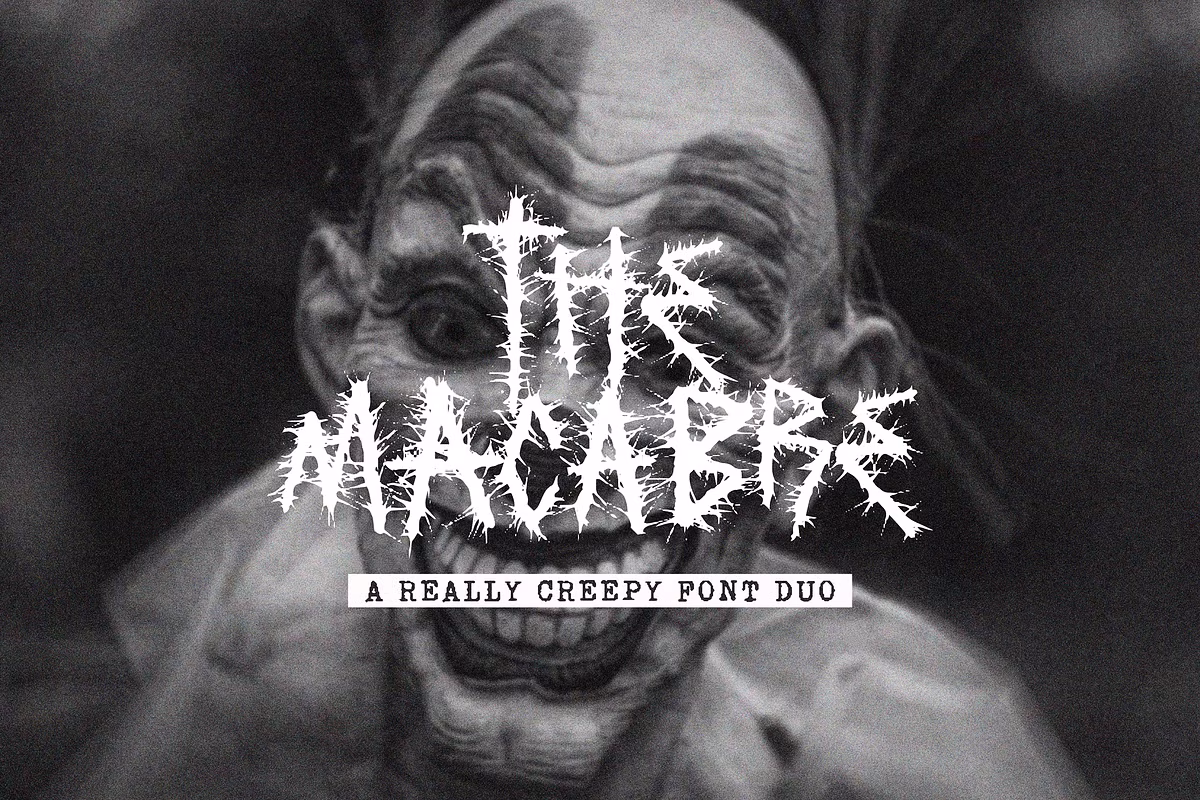
THE MACABRE Font Free Download is a hauntingly beautiful typeface designed for those who want to add a dark, gothic flair to their creative projects. With its sharp edges, dramatic strokes, and mysterious vibe, this font is perfect for horror-themed posters, movie titles, Halloween designs, and edgy branding materials. It captures attention instantly and creates a chilling atmosphere with every letter.
Ideal for designers looking to make a bold, eerie statement, THE MACABRE brings intensity and emotion to your visuals. Its distinct style ensures your text stands out in both digital and print formats. Whether you're crafting a thriller book cover or a spooky event flyer, this font adds the perfect touch of macabre sophistication.